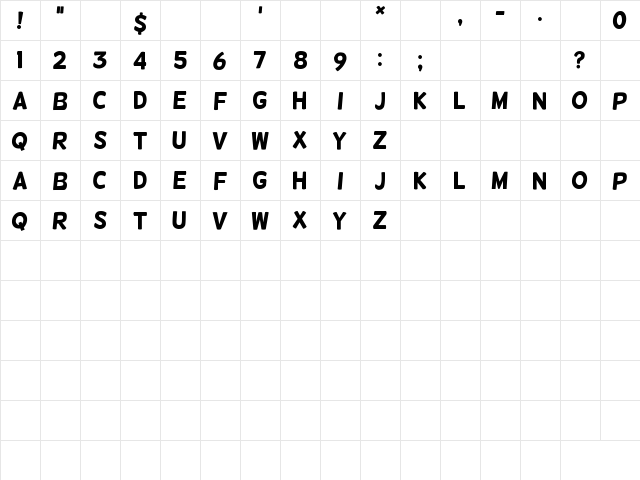
Helsinki Regular Free Font
Helsinki Regular
Design Context for Helsinki
Helsinki is a composed and adaptable typeface that performs quietly and consistently across a wide range of design contexts.